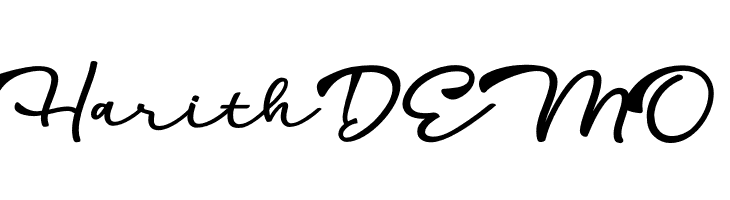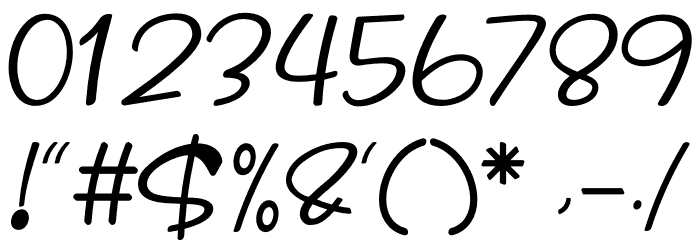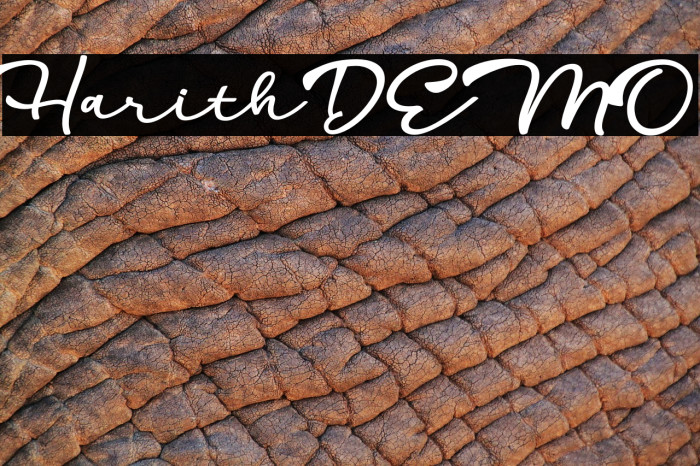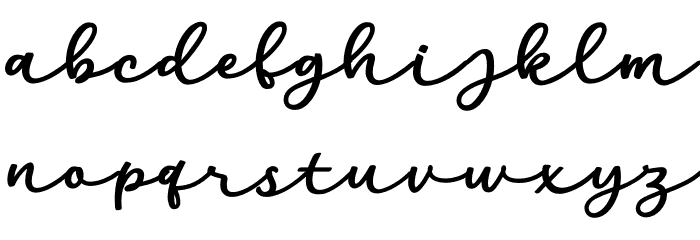
HarithDEMO Font
HarithDEMO Description
This font features a flowing, cursive style that exudes elegance and fluidity. The characters are interconnected, creating a seamless and harmonious appearance. The uppercase letters maintain a consistent height, while the lowercase letters exhibit a gentle slant, adding to the script's dynamic nature. The numerals are clear and legible, complementing the overall aesthetic. Special characters are designed with the same attention to detail, ensuring they blend seamlessly with the alphabet. This font is ideal for projects that require a touch of sophistication and grace.
| Overall Style | Elegant |
| Use Case | Logos, Invitations, Decorative text |
| Proposed Projects | Ideal for wedding invitations, elegant branding, personal signatures, and decorative headings. |